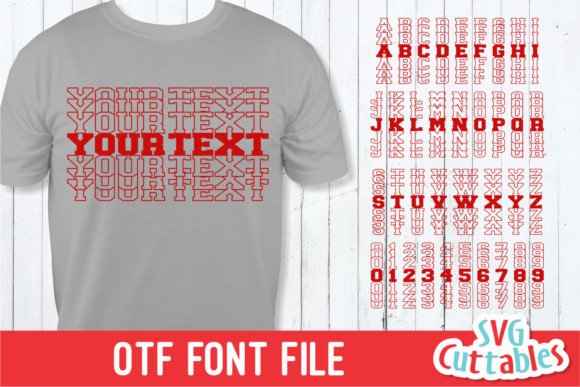
Introducing Bulldogs, the perfect slab serif font for all your sports and athletic needs! Created by SVG Cuttables, this font is specifically designed to be the best font for sport logos. With its bold and assertive design, Bulldogs is sure to make your brand stand out from the crowd.
Whether you're designing a team logo, creating promotional materials for a sporting event, or crafting merchandise for your athletic brand, Bulldogs is the ultimate choice. This font family exudes power, strength, and dominance, making it the ideal option for any sports-related project.
But it's not just about the look of the font - Bulldogs is also incredibly versatile. Whether you're using it for digital designs, presentations, or making greeting cards, this font has the potential to become your go-to font for any occasion. Its unique and eye-catching design is sure to captivate your audience and leave a lasting impression.